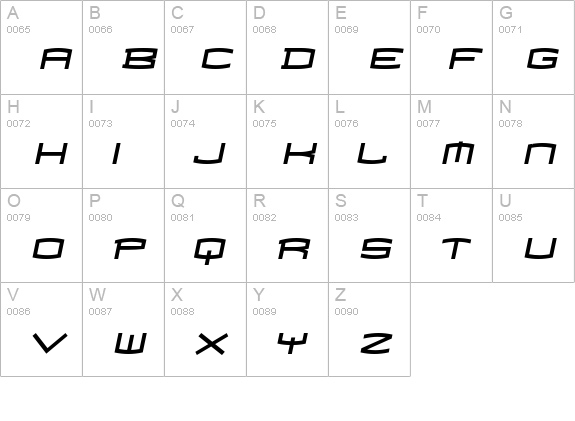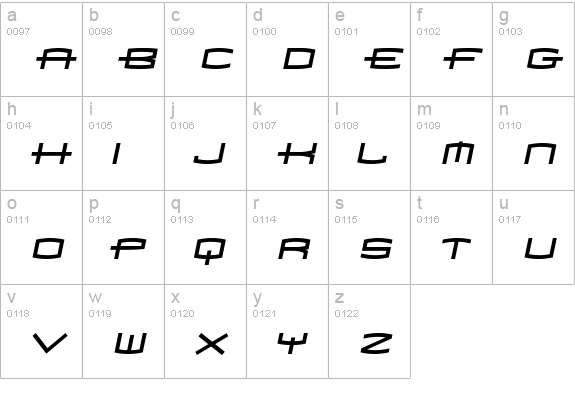
Homoarakhn Font Details
Homoarakhn font is a captivating and stylish typeface that exudes a sense of modernity and sophistication. With its sleek lines and sharp edges, this font is perfect for adding a contemporary touch to your projects. The unique design of Homoarakhn font makes it stand out from the crowd, making it ideal for logos, branding, headlines, and more. What's even better is that Homoarakhn font is available for free download at FontsMarket.com! This means you can easily access this stunning font and use it in your designs without any cost. Don't miss out on the opportunity to elevate your projects with the striking Homoarakhn font - download it today and unleash your creativity!